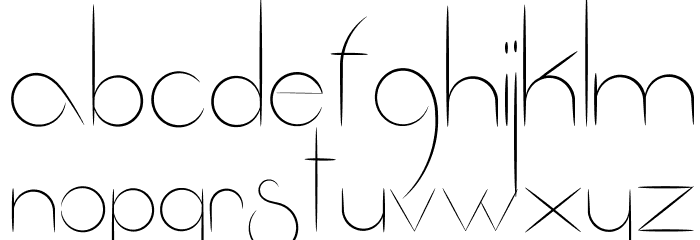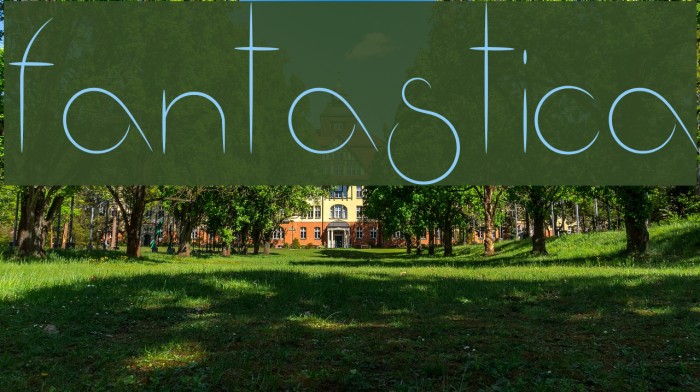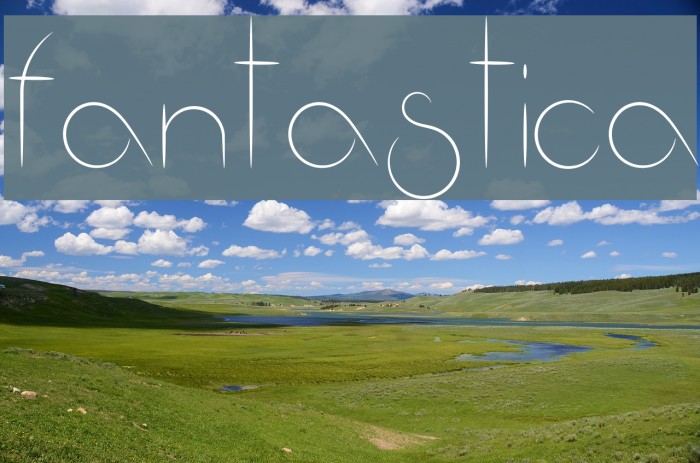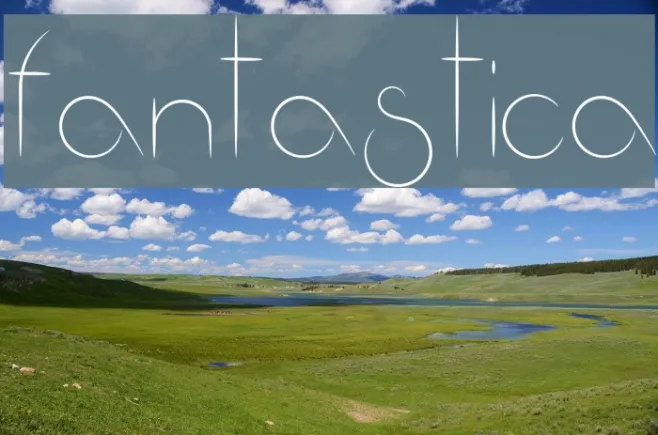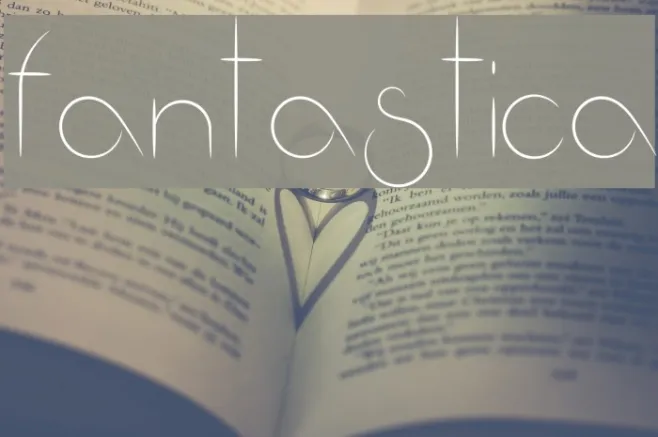
Fantastica Font
This font features a highly stylized and modern design, characterized by its thin, elongated letterforms and high contrast between thick and thin strokes. The characters exhibit a unique blend of geometric and organic shapes, with some letters having sharp, pointed terminals and others displaying smooth, flowing curves. The overall appearance is elegant and sophisticated, making it suitable for creative and artistic projects. The font lacks traditional serifs, giving it a clean and contemporary look. Its distinct style is particularly evident in the lowercase letters, where the exaggerated ascenders and descenders create a striking visual impact.
A modern, high-contrast font with thin, elongated letterforms and a unique geometric style.
- Proposed Projects: Ideal for fashion magazines, luxury branding, artistic posters, and modern web design.
- Use Case: Logos, Headlines, Artistic projects